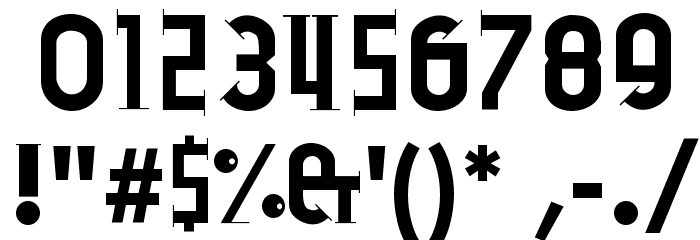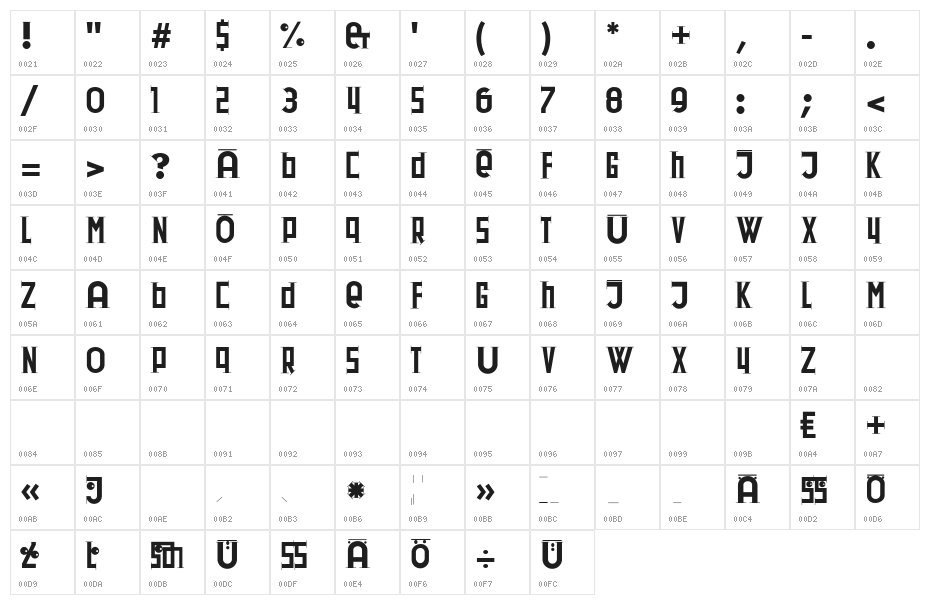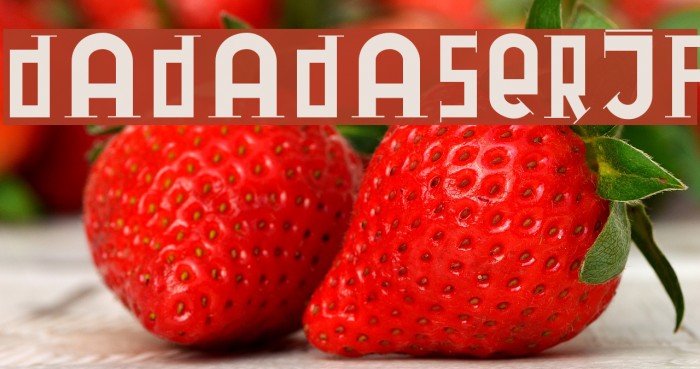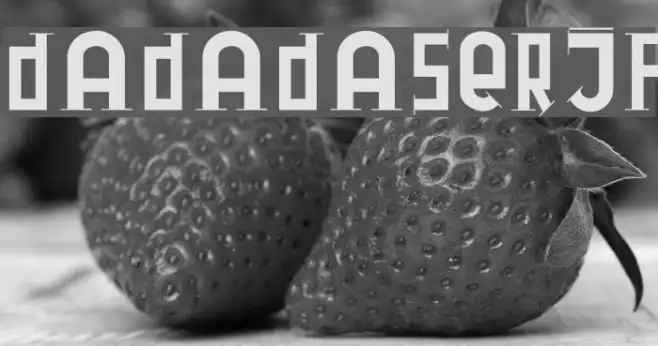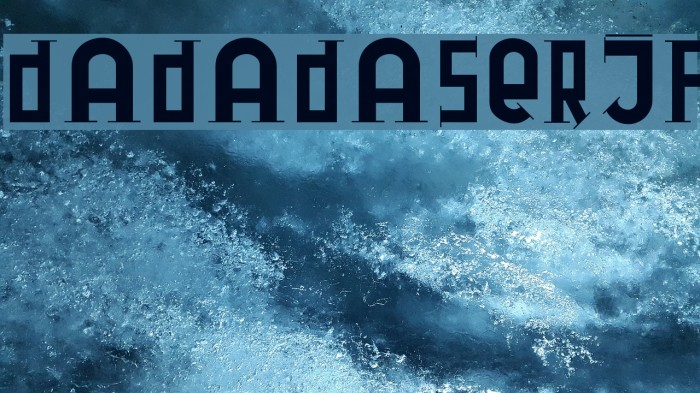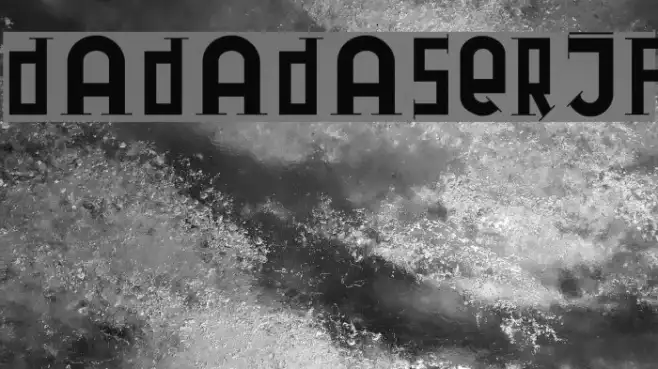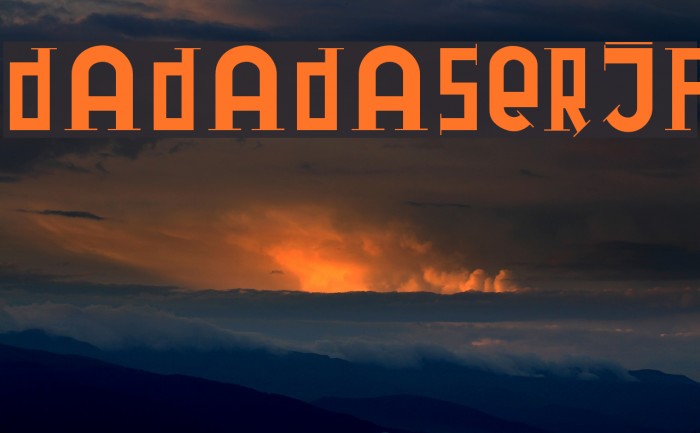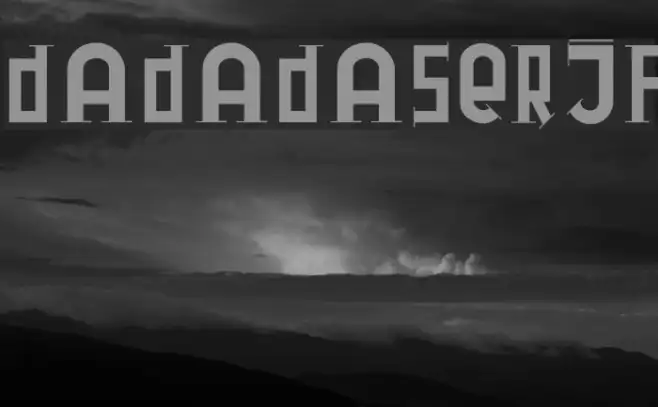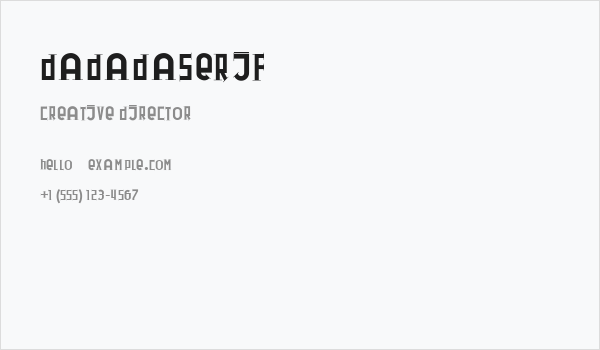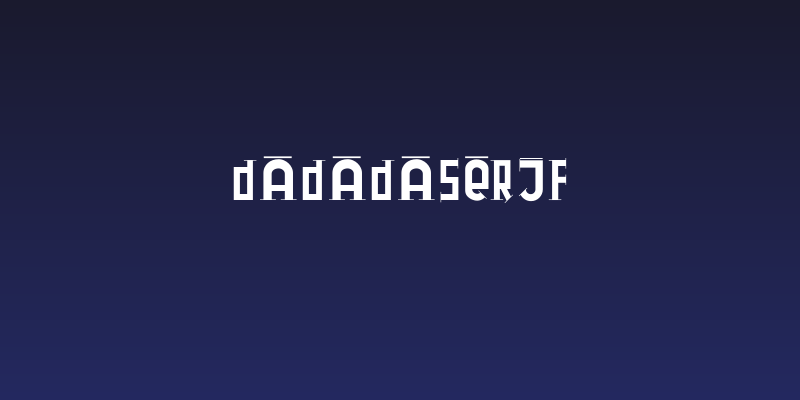
DadaDaSerif Font
DadaDaSerif Description
This font features a bold, geometric design with a strong presence. The characters are constructed with sharp angles and straight lines, giving it a modern and assertive look. The uppercase letters are particularly striking, with unique elements such as the diagonal cuts in the 'A' and 'R', and the distinctive tails on letters like 'Q' and 'J'. The lowercase letters maintain the same geometric style, ensuring consistency throughout. The numerals are equally bold, with a uniform height that aligns well with the uppercase letters. Special characters are designed to match the overall aesthetic, making this font suitable for a variety of uses where a strong visual impact is desired.